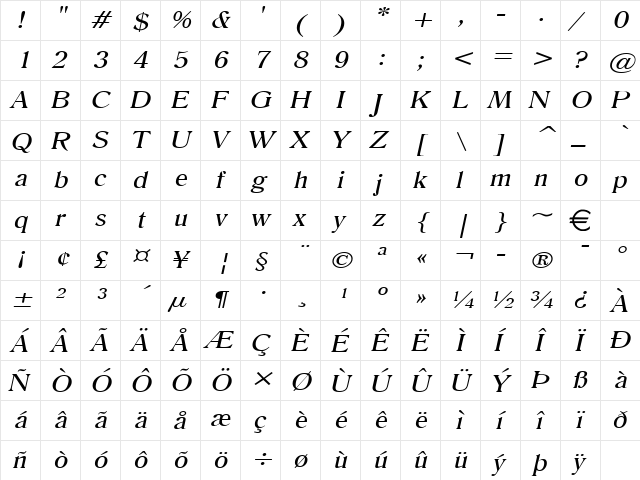
RoomyWide Italic
Design Context for RoomyWide Typeface
RoomyWide is a composed and adaptable typeface that performs quietly and consistently across a wide range of design contexts. Its italic angle brings a sense of urgency and motion to the letterforms.
Pro Tip: Try RoomyWide for annotation and caption copy alongside an upright companion — the contrast in angle creates a dynamic but ordered typographic system.